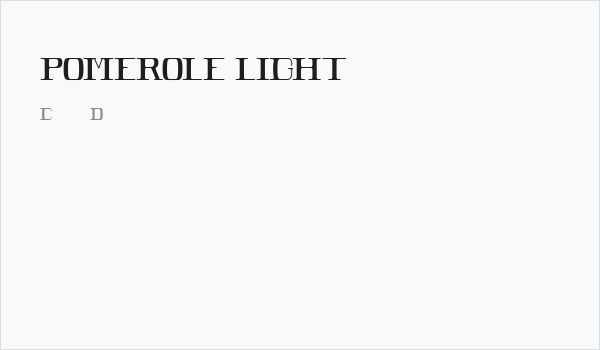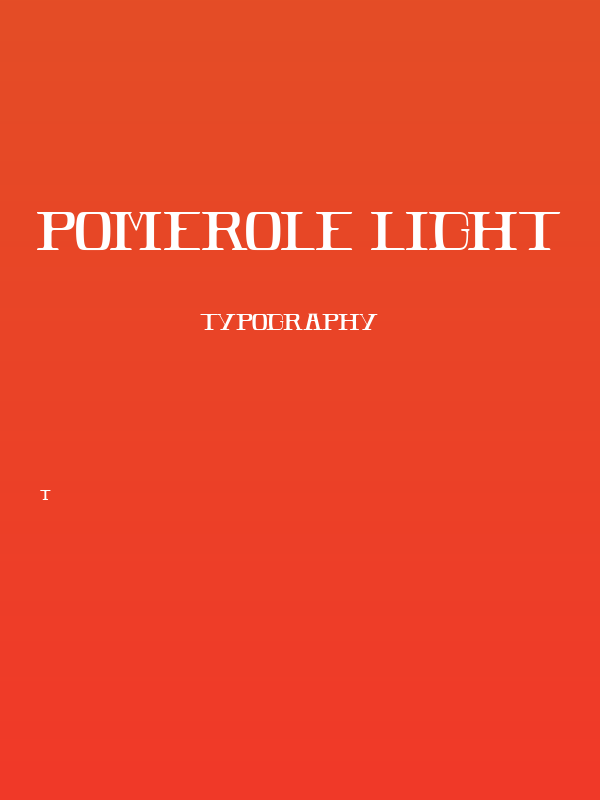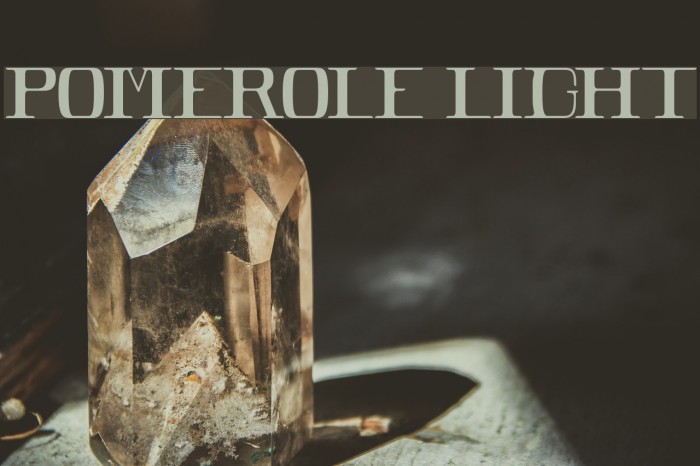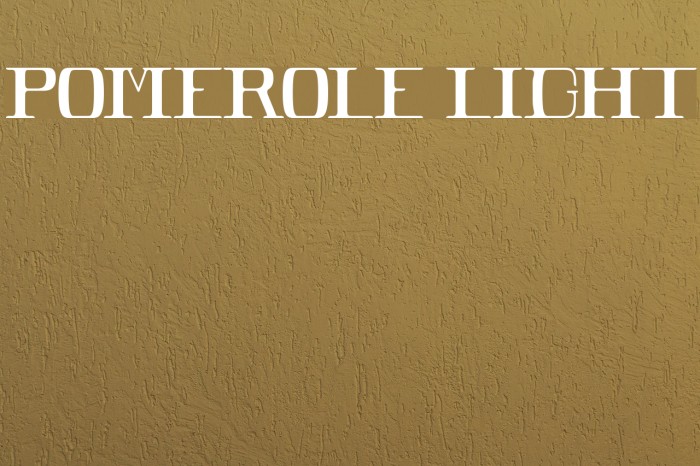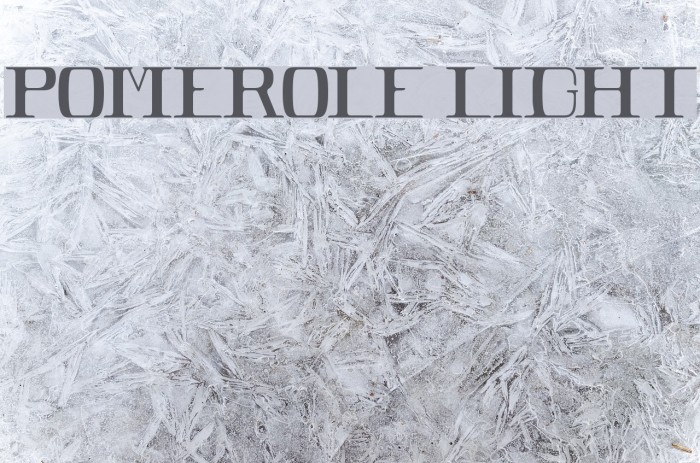
POMEROLE LIGHT Font
POMEROLE LIGHT Description
This font features a distinctive and bold design with a modern twist. The characters are crafted with a unique blend of sharp edges and smooth curves, creating a striking visual impact. The uppercase letters exhibit a strong presence, while the lowercase letters maintain a consistent style that complements the overall aesthetic. The numbers and special characters are designed to match the boldness and style of the alphabet, ensuring a cohesive look across all text. This font's design is both eye-catching and versatile, making it suitable for a variety of creative projects.
| Proposed Projects | Ideal for branding, posters, headlines, and any project requiring a strong visual impact. |